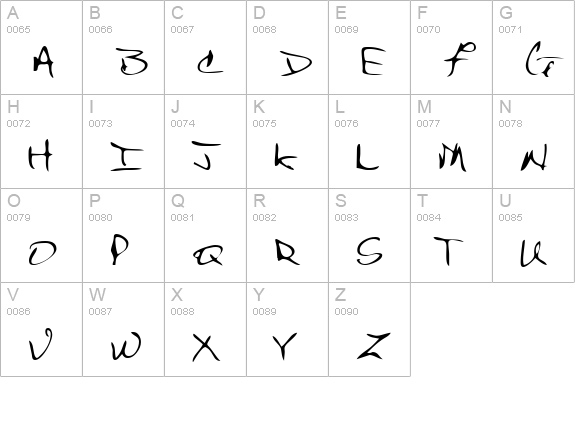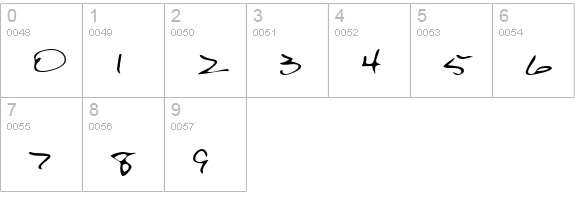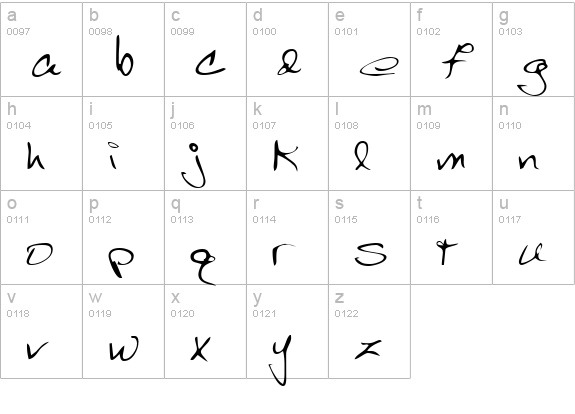
JuliesHand Regular is the standard, neutral variant in the JuliesHand typeface family \xE2\x80\x94 well suited to general body text, paragraphs, and standard typographic work.
JuliesHand Regular is a charming and artistic handwritten font that exudes a warm and friendly vibe. With its elegant curves and flowing strokes, this font is perfect for adding a personal touch to your projects. Whether you're creating invitations, greeting cards, or social media graphics, JuliesHand Regular will bring a touch of whimsy and sophistication to your designs. The best part? JuliesHand Regular is available for free download at FontsMarket.com. You can easily access this delightful font and elevate your creations without any cost. Embrace the creativity and versatility of JuliesHand Regular as you infuse your projects with a unique and personalized flourish. Download this font today and let your imagination soar!